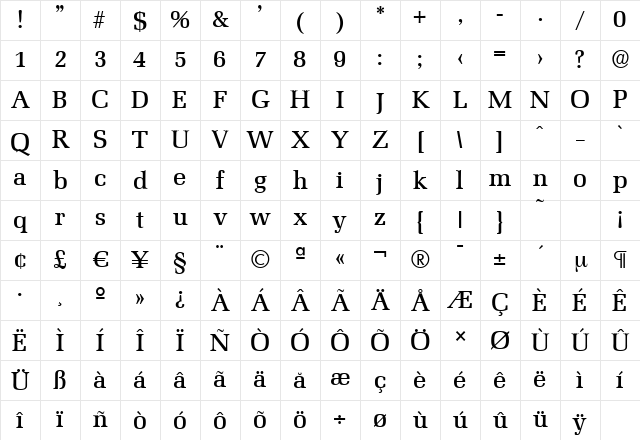
MarseilleSerial-Medium Regular
Design Context for MarseilleSerial-Medium
MarseilleSerial-Medium is a composed and adaptable typeface that performs quietly and consistently across a wide range of design contexts.